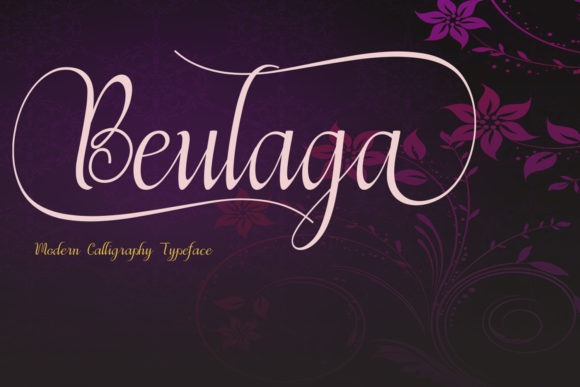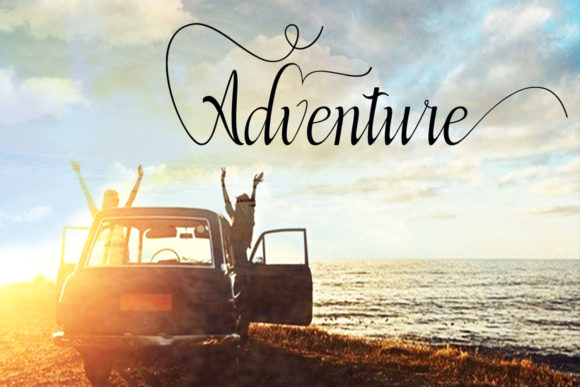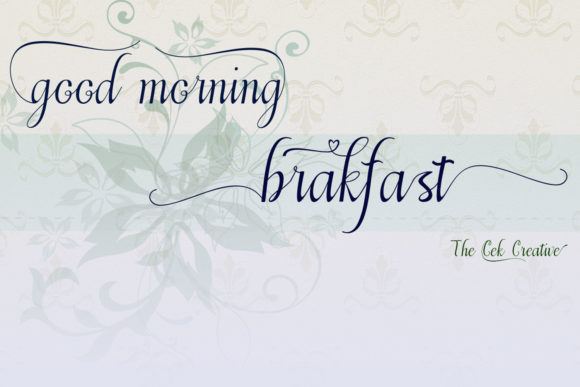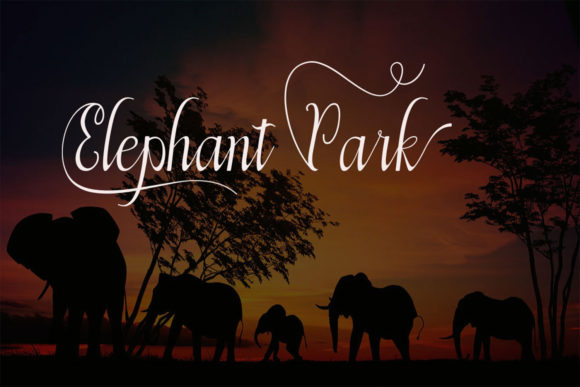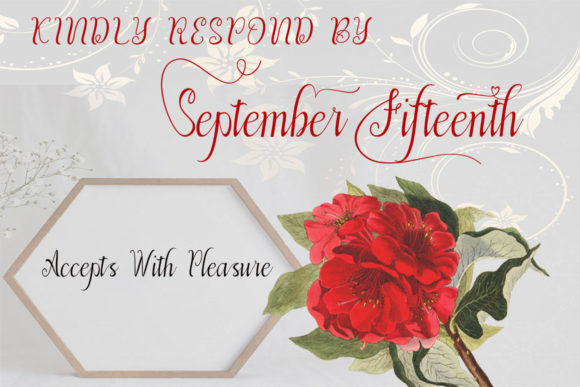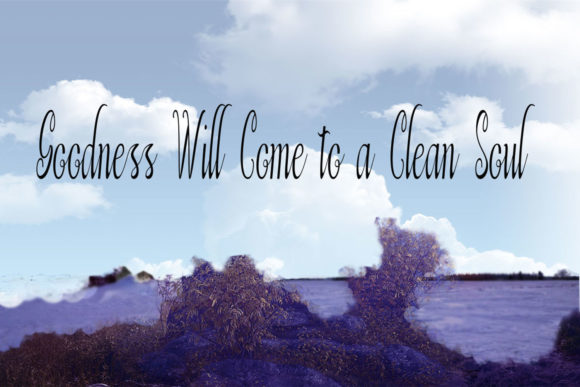
Beulaga Font
About Beulaga Font
Beulaga is a fun and amazing handwritten font that will turn any creative project into a stunning stand out. Fall in love with its bold swashes!